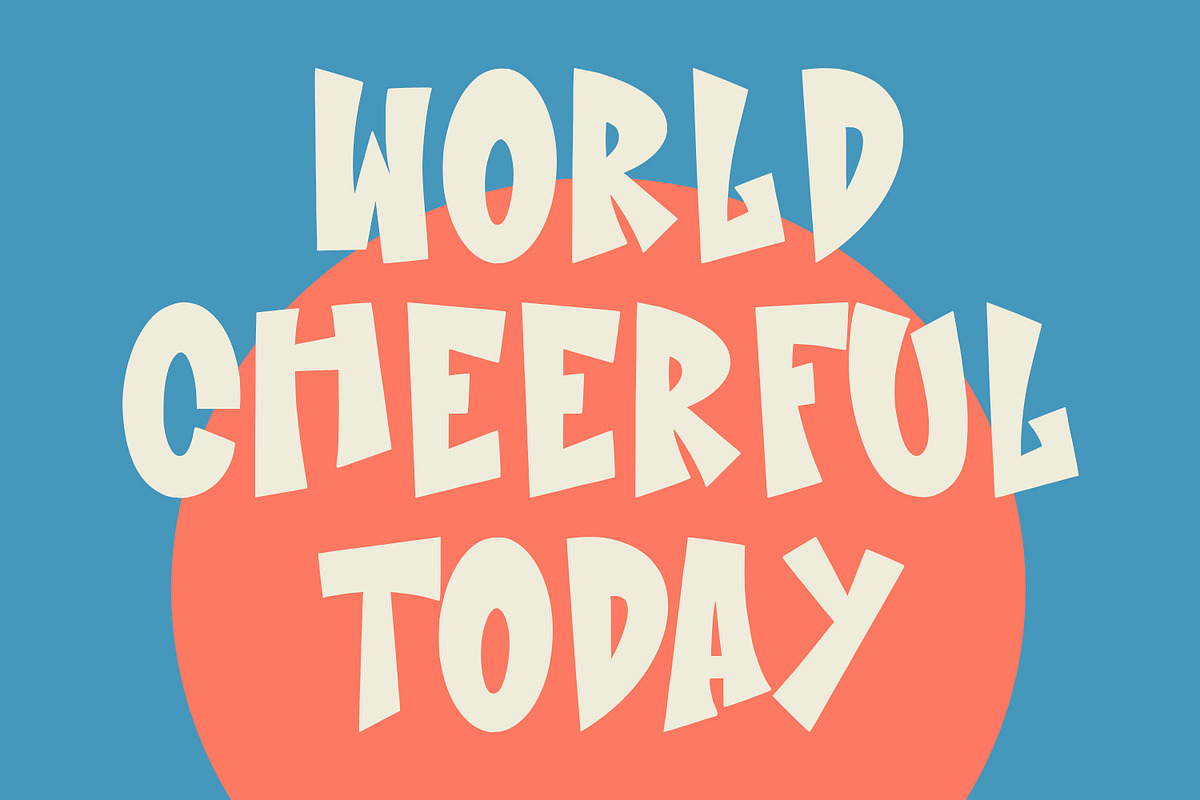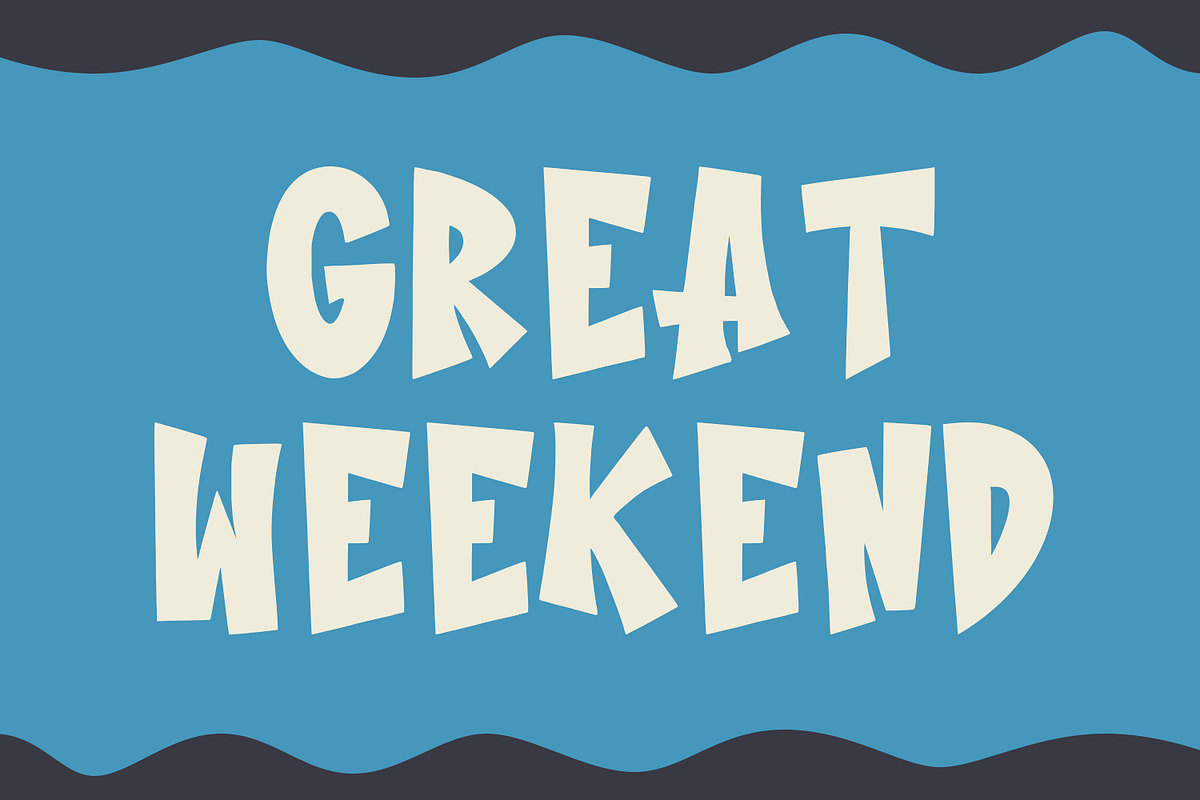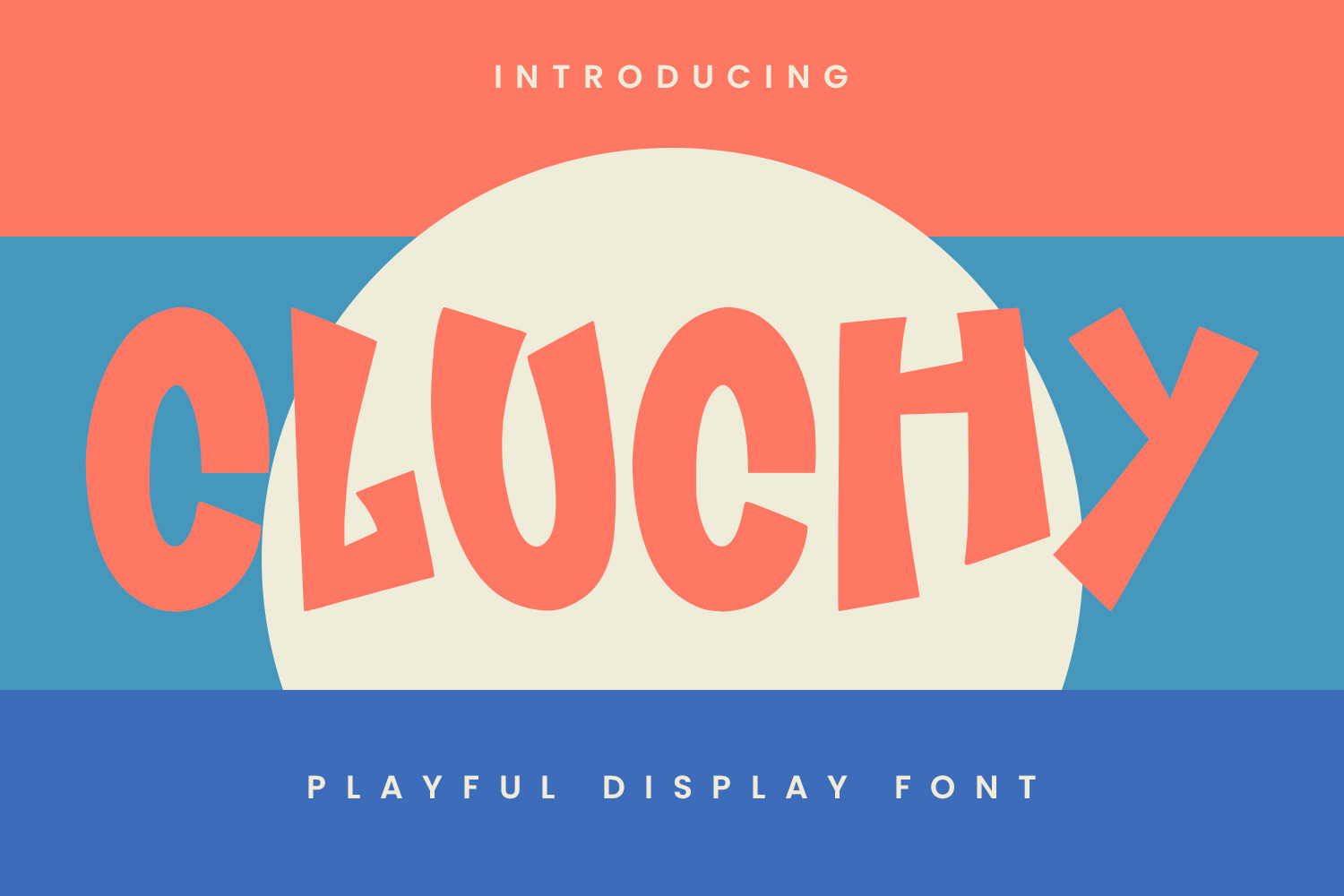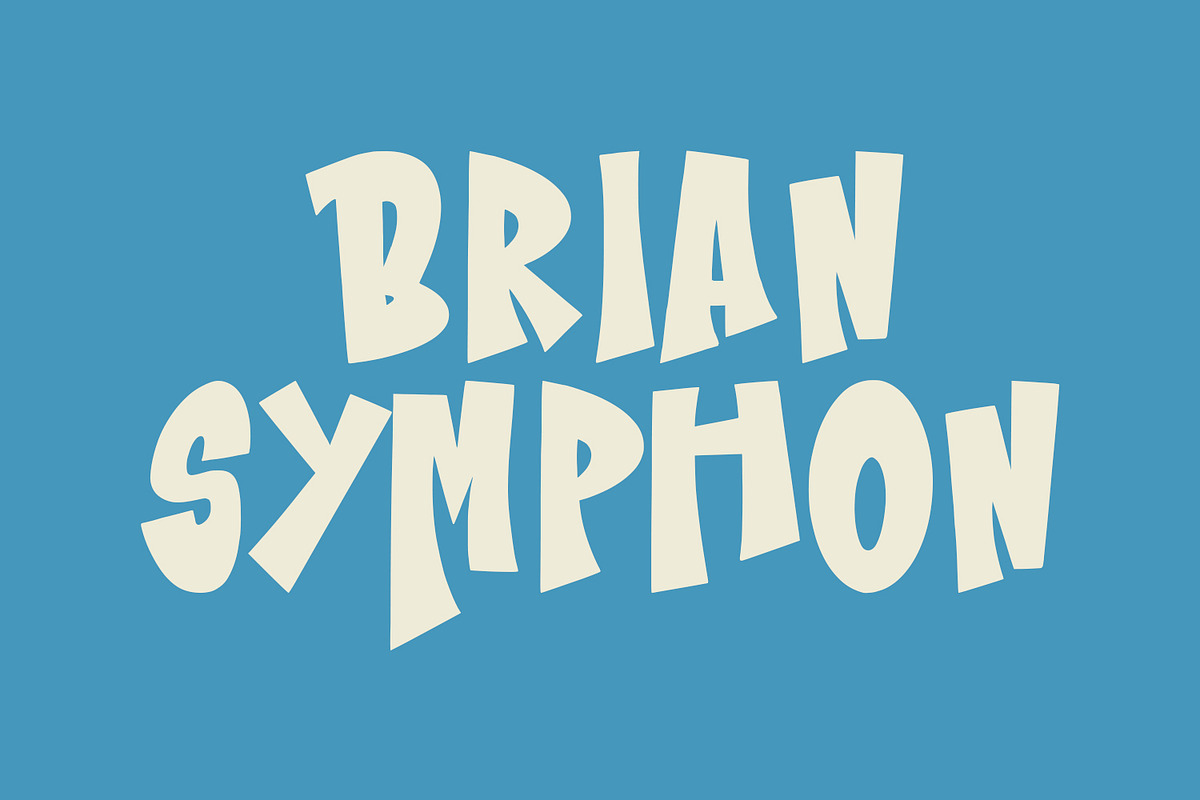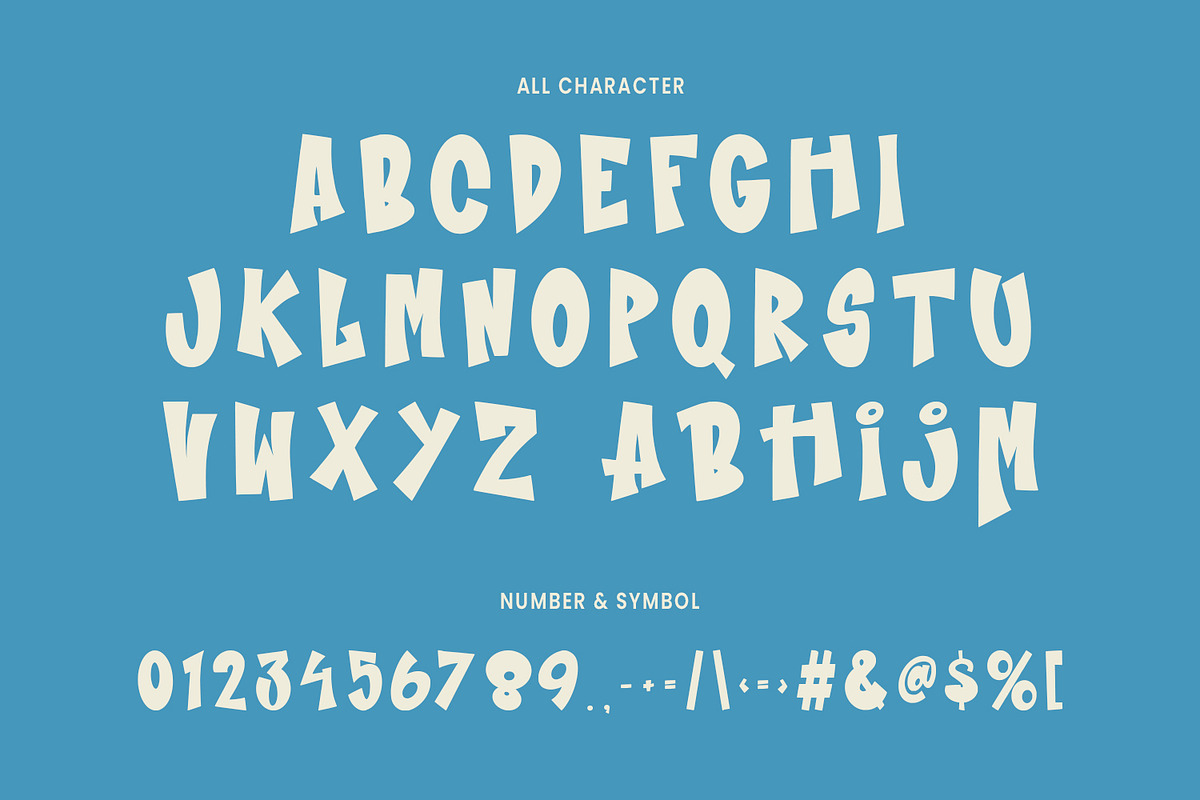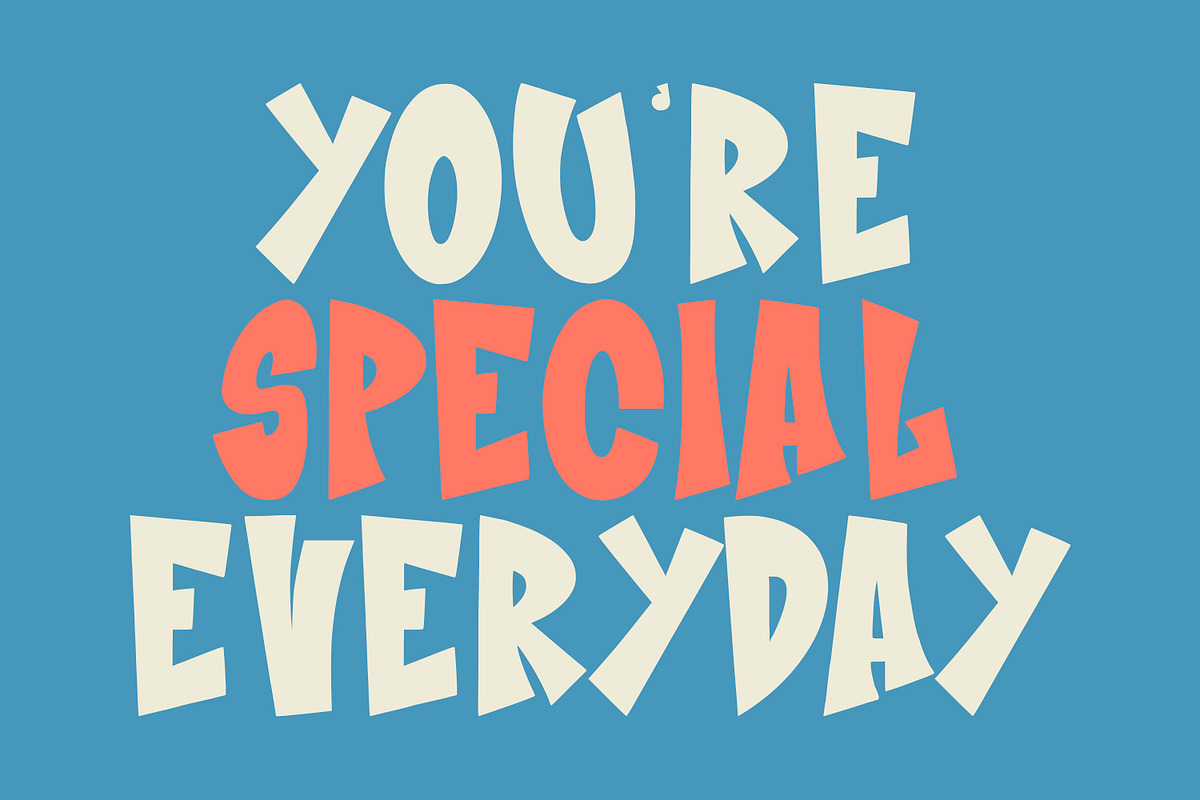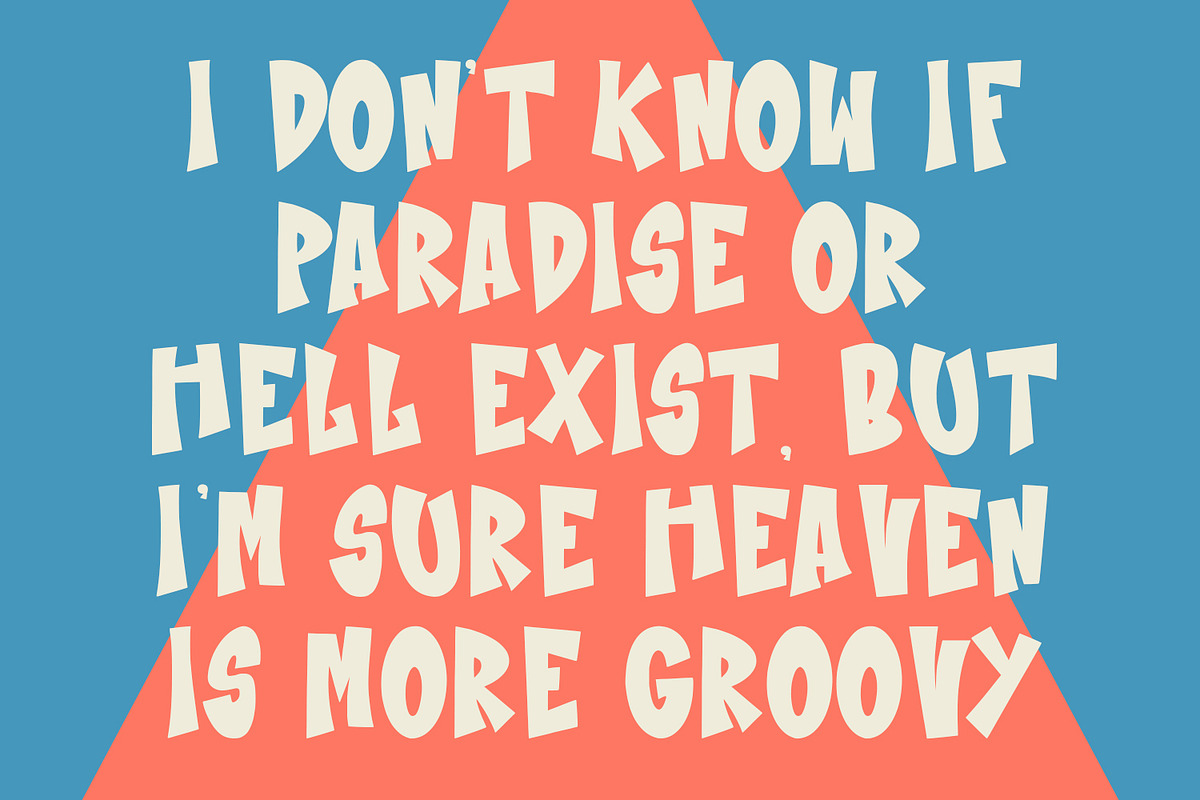
Cluchy Playful Display Font
Cluchy playful display font. Heavy stroke, fun character with a bit of ligatures. To give you an extra creative work. Cluchy playful display font support multilingual more than 100+ language. This font is good for logo design, Social media, Movie Titles, Books Titles, a short text even a long text letter and good for your secondary text font with script or serif. Make a stunning work with Cluchy playful display font.